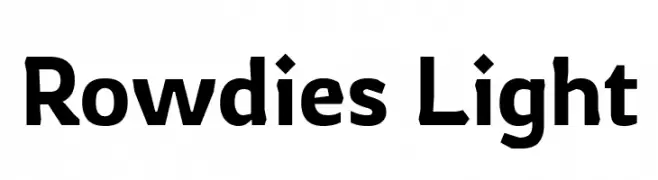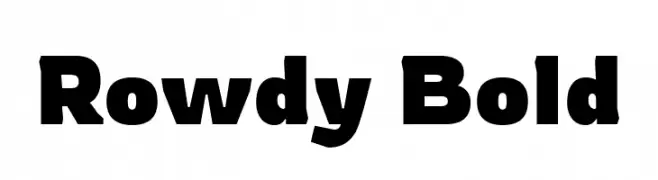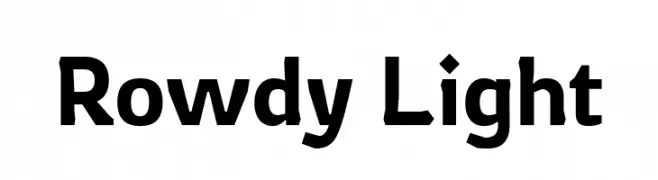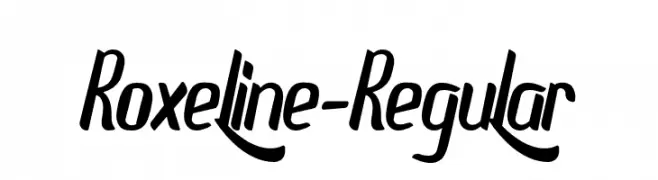
A bold, modern sans-serif font with clean lines and uniform stroke widths.
A bold, modern font with strong, geometric strokes and excellent readability.
A bold, modern font with thick strokes and a strong presence.
A bold, modern font with clean lines and strong visual impact.
A playful, rounded font with bold, smooth curves and a slightly slanted style.
A playful, bold handwritten font with smooth curves and dynamic slant.
A bold, dynamic script font with a modern, energetic style.
A dynamic and expressive handwritten font with fluid strokes and a natural flow.
A decorative script font with elegant curves and playful flourishes.
A bold, playful script font with a whimsical, hand-drawn style.